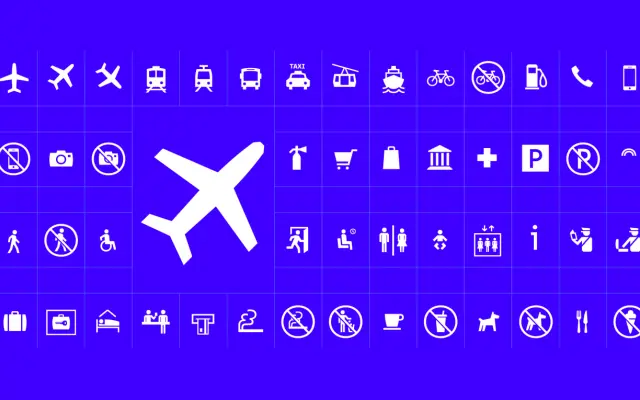
Ways
Fontfabric · Viktoria Usmanova, Plamen Motev · 2022
A nine-weight humanist grotesque with ink traps and variable fonts, designed for legibility across signage, editorial and digital work.
Developed by Viktoria Usmanova and Plamen Motev at Fontfabric, Ways spans nine weights from Thin to Black, each with a matching italic, plus two variable fonts and an icons set — 21 styles in total. Ink traps, wider apexes and considered spacing underpin its legibility at both large and small sizes. Extended Latin and Cyrillic coverage with a full suite of OpenType features makes it suited to international projects across branding, UI and environmental graphics.
Ways blends grotesque structure with humanist detail — ink traps, wider apexes, and extra white space give it warmth alongside functional rigour. Fontfabric describe it as a mix of brutal and elegant details with humanist flair.